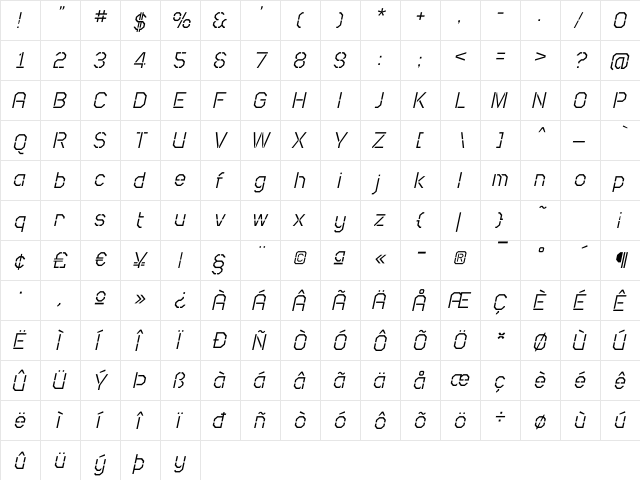
Camo SansLight Oblique Regular Font Preview
Design Context for Camo SansLight Oblique Typeface
Camo SansLight Oblique takes a measured approach to typography — its balanced proportions and neutral character make it a reliable workhorse for both digital and print work. The dynamic lean of this cut emphasises speed and emphasis in any layout. Its slender proportions lend an understated elegance to any composition.
Pro Tip: Try Camo SansLight Oblique for annotation and caption copy alongside an upright companion — the contrast in angle creates a dynamic but ordered typographic system.